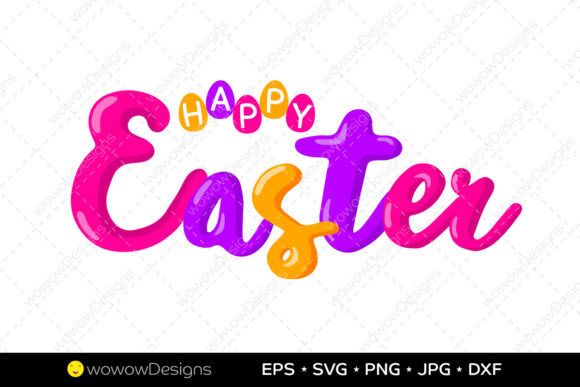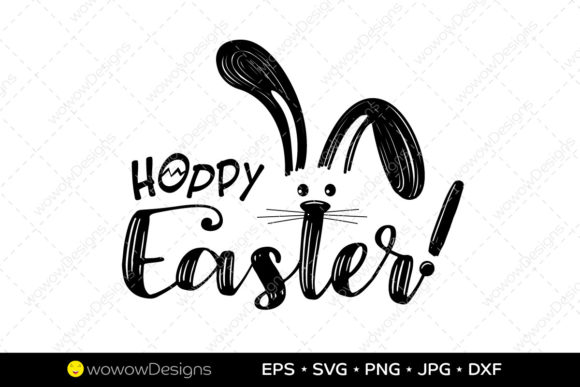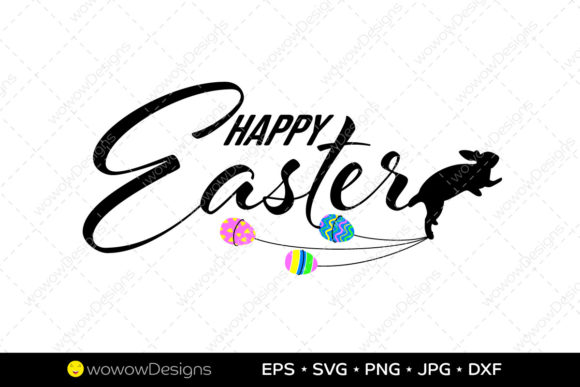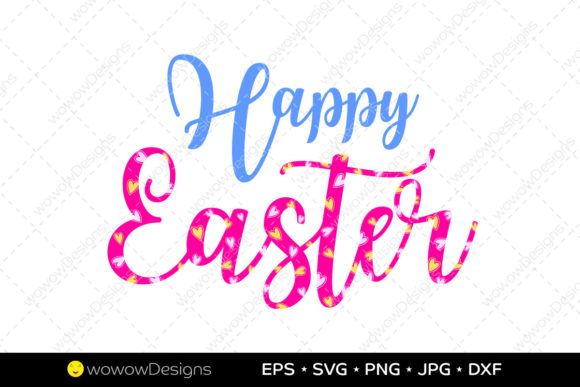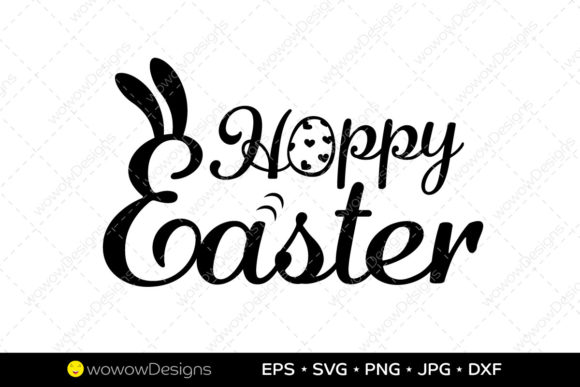
Spring instant: 5 Easter lettering designs to download & use right now
Spring is in the air, and honestly? My workspace has never looked better. There is something about this season that makes me want to create things that feel fresh, light, and full of life.
When it comes to Easter projects, most designers default to the same pastel palettes and bunny silhouettes. Nothing wrong with that. But what really sets work apart is the typography. The right lettering design transforms a simple greeting into something people actually want to share. Whether I am crafting packaging for seasonal treats or social content for egg hunts, the fonts I choose carry all that spring energy.
Today I am sharing my favorite Creative Fonts for Easter projects. Think warm, playful, and just a little bit whimsical. Let’s make this spring your most typographically beautiful one yet.
Hoppy Easter Lettering Design
Let me introduce you to a personal favorite this season. The Hoppy Easter Lettering Design is exactly what you want when a project needs to feel handmade without actually requiring hours of lettering work.
Happy Easter Lettering Design
Sometimes you just need a classic. And this Happy Easter Lettering Design? It is about as classic as it gets without feeling boring. The lettering here hits that sweet spot between playful and polished. Curves that feel springy, weight that reads well from a distance, and just enough personality to keep things interesting. I dropped this into a poster draft last week and it instantly lifted the whole composition.
Happy Easter Lettering Design
This next one has been living in my spring mood board for weeks. Every time I open that folder, it catches my eye again. The Happy Easter Lettering Design does something simple but smart. It gives you that hand-lettered feel without the hours of pencil work. The letters have weight. They have movement. They actually look like someone sat down and drew them with care. And that organic quality? It translates beautifully across everything I have tested it on.
Happy Easter Lettering Design
I have a confession. I used to dread Easter projects. Not because I hate bunnies or pastels, but because finding good lettering that actually prints well felt impossible. Then this one landed in my library. The Happy Easter Lettering Design changed how I approach spring work entirely. The letters have this effortless charm that works whether you are going elegant or playful. No awkward spacing. No weird kerning. Just solid lettering that reads beautifully at any size.